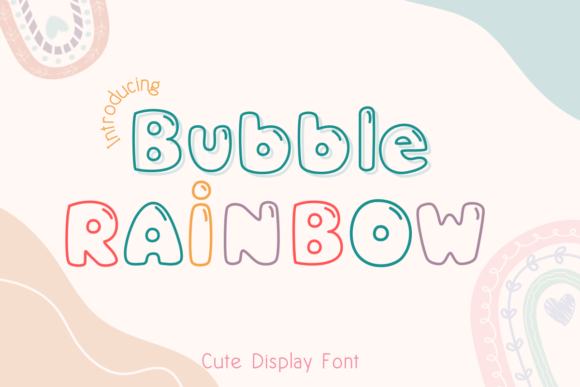
The Magical World of Bubble Rainbow Font
Have you ever been in the middle of a design project, and suddenly, you’re stuck on finding the perfect font? I recall a recent experience where I was working on a Valentine’s Day card design, and I just couldn’t find a font that captured the playful, whimsical feel I was going for. That’s when I stumbled upon the delightful Bubble Rainbow Font. In this article, we’ll dive into the world of this charming display font and explore its features, uses, and some helpful tips and tricks.
A Personal Review of Bubble Rainbow Font
I’m excited to share my honest review of Bubble Rainbow Font. As a designer, I’m always on the lookout for fonts that can add a touch of personality to my projects.
- ✨ Cute and Playful Design: Bubble Rainbow Font is puffy and round, reminiscent of bubbles. Its unique design makes any project look cute and exotic.
- ✅ PUA Encoding: This font is PUA encoded, which means you can easily access all the amazing glyphs and ligatures.
- 💕 Perfect for Various Projects: From Valentine’s Day cards to wedding invitations, beautiful stationery art, and social media posts, this font is incredibly versatile.
- 🤔 Legibility at Small Sizes: While Bubble Rainbow Font is stunning at larger sizes, it can become a bit tricky to read at smaller sizes. It’s best used for display purposes.
- ⚠️ Limited Use in Formal Designs: Due to its playful nature, this font might not be the best choice for formal or professional designs.
This feature allows for a high level of customization and creativity in your typography.
The Story Behind Bubble Rainbow Font
The creation of Bubble Rainbow Font can be attributed to a designer who sought to capture the essence of childhood wonder and playfulness in typography. Inspired by the floating beauty of bubbles and the vibrant colors of the rainbow, this font brings a touch of magic to any design project. The designer aimed to create a font that not only looks delightful but also evokes a sense of joy and whimsy.
Q: What is Bubble Rainbow Font?
A: Bubble Rainbow Font is a cute display font characterized by its puffy, bubble-like appearance. It’s perfect for creating playful and exotic designs.
Q: Is Bubble Rainbow Font suitable for body text?
A: Due to its playful and decorative nature, Bubble Rainbow Font is best used for display purposes rather than body text. It’s ideal for titles, headings, and short phrases.